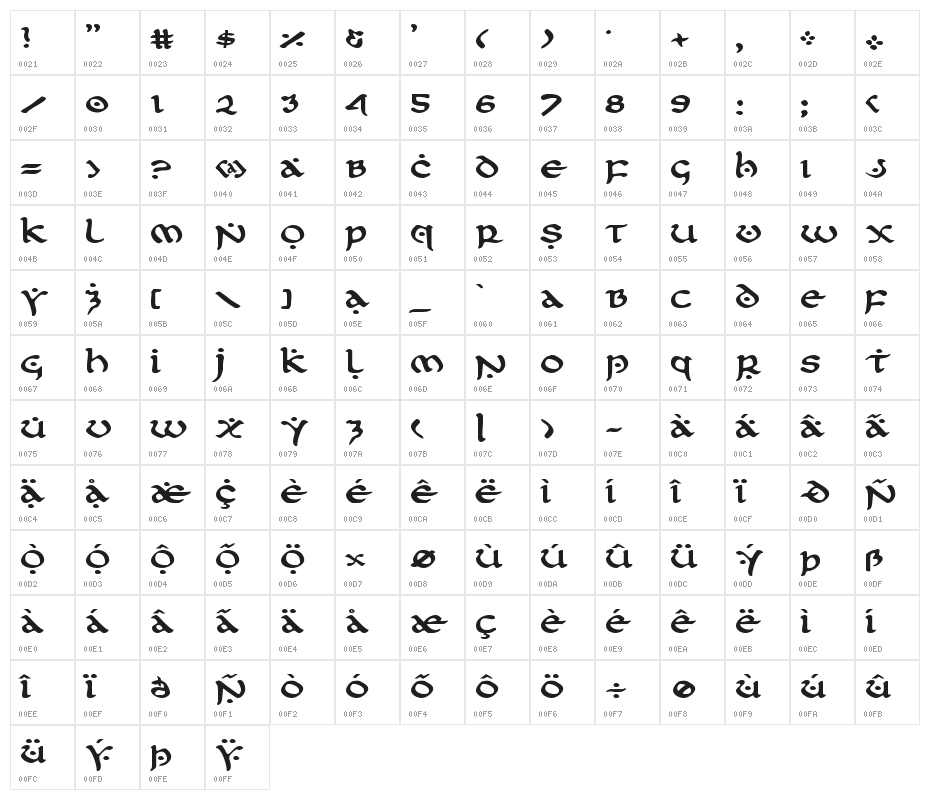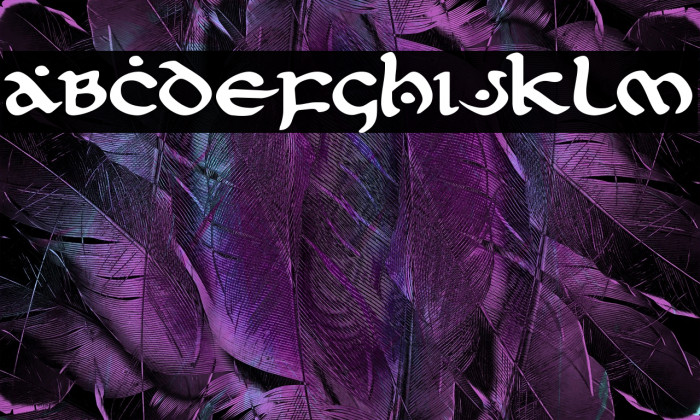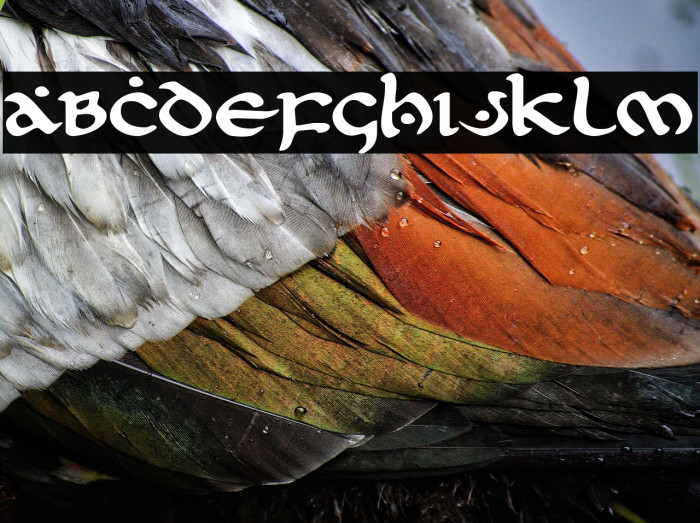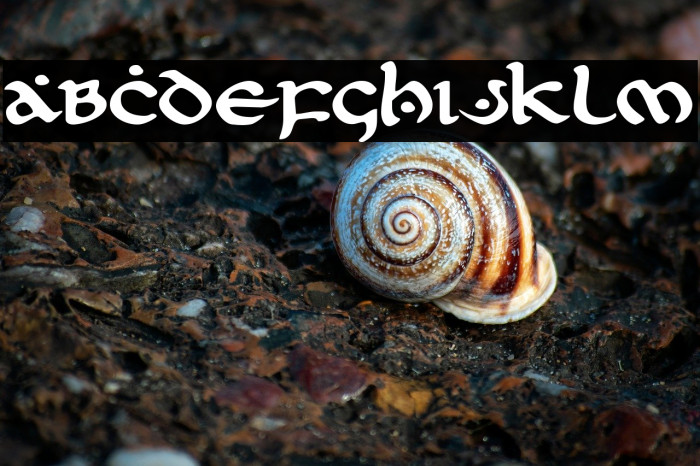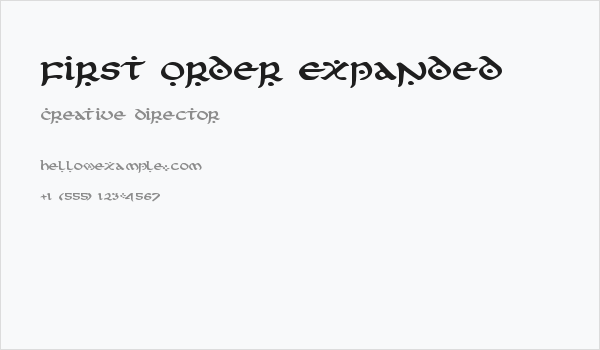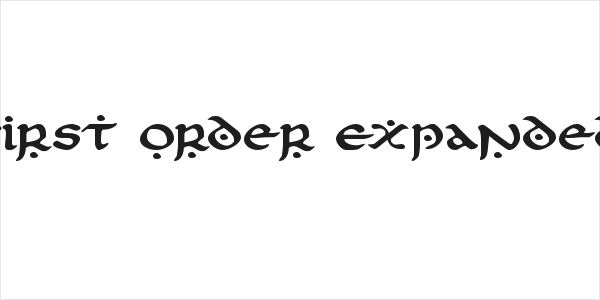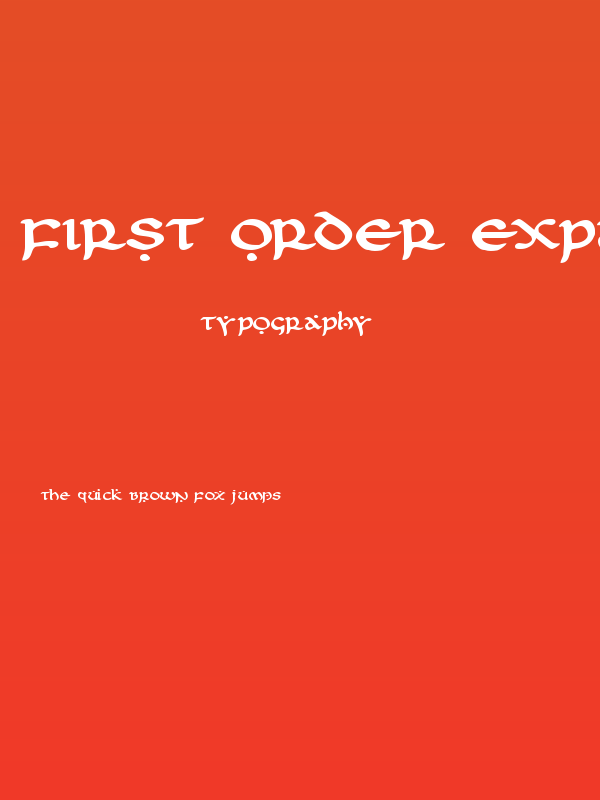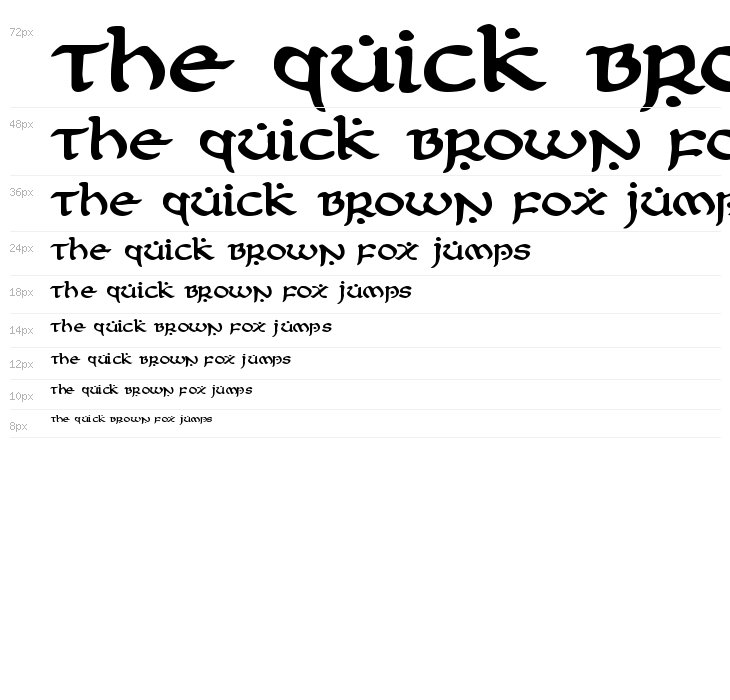
First Order Expanded Font
First Order Expanded Description
This font features a unique and artistic style with a medieval or fantasy-inspired design. The characters are bold and have a hand-drawn appearance, with exaggerated curves and flourishes that give it a whimsical and decorative look. The uppercase and lowercase letters maintain a consistent style, with distinctive serifs and rounded edges. Numbers and special characters are equally stylized, maintaining the overall theme. The font's playful yet elegant design makes it suitable for projects that require a touch of fantasy or historical flair.
| Proposed Projects | Ideal for fantasy book covers, themed event invitations, or historical-themed branding. |